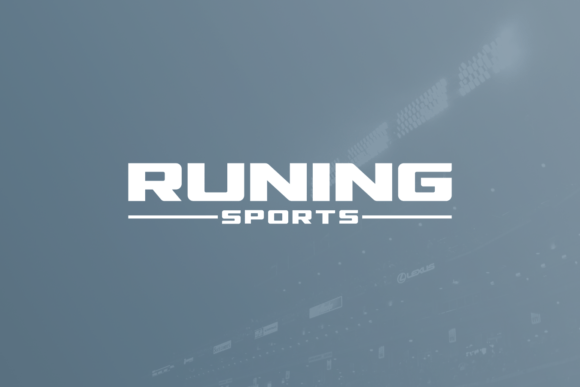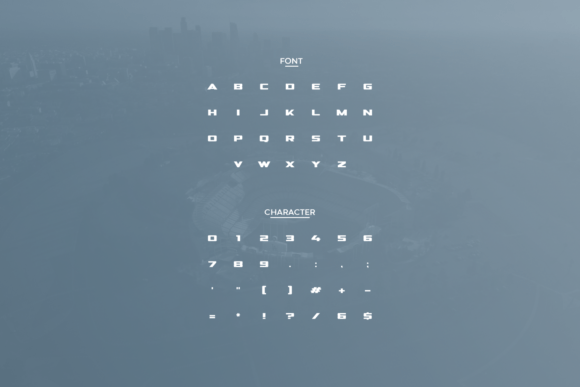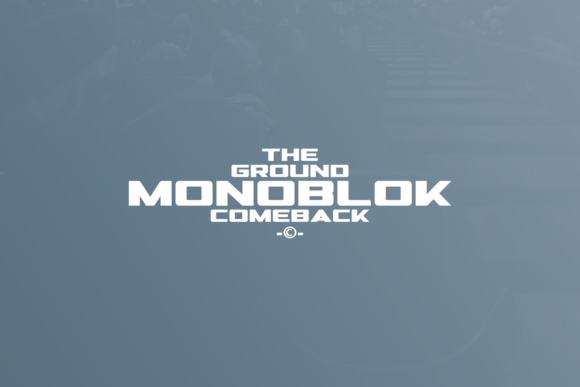
Introduction to Kunings Font
You know that moment when you’re working on a creative project and the right font can make all the difference? For designers, the hunt for the perfect typography is an ongoing quest. As you search through font libraries, you stumble upon a hidden gem – the Kunings Font. This stylish and modern sans-serif font is an incredible asset to any design library, with the potential to elevate any creation.
What sets the Kunings Font apart is its high-quality design, making it a valuable resource for designers. Whether you’re working on a design project or creating digital art, this font is sure to impress. With its clean lines and versatile style, it’s the perfect addition to any design toolbox. And the best part? The Kunings Font is available for free download, giving designers the freedom to explore its full potential.
From logos to brochures, the Kunings Font is a design resource that will help you take your creative projects to the next level. With a transparent background, it’s perfect for use on a variety of design elements, from social media graphics to website headers. Get ready to unlock the full potential of the Kunings Font and take your designs to new heights.
Key Features of Kunings Font
- High-quality design resource ideal for creative projects requiring unique typography.
- Transparent background allows for seamless integration into various design elements.
- Comes in a range of font sizes and resolutions, making it suitable for various design applications.
- Unique characteristics include its creative and modern aesthetic, perfect for artistic and innovative projects.
- Supports a wide range of languages, making it a versatile design resource for international projects.
Honest Review: Kunings Font
I recently had the chance to work with the Kunings Font for a creative project, and I was impressed by its potential as a design resource. This free download offers a lot of flexibility, especially when it comes to pairing it with a transparent background. The clean and modern design makes it a great choice for various high-quality projects.
- ✨ Works well with transparent backgrounds, adding an extra layer of design freedom
However, there are a few limitations to keep in mind. The font’s availability in a limited number of weights and styles might be a drawback for some designers. Additionally, the font’s usage might be restricted in certain commercial contexts.
- ⚠️ Limited number of weights and styles available
Overall, I was pleased with the Kunings Font’s performance in my project. While it has its limitations, it’s a great choice for designers looking for a high-quality, free design resource.
The Kunings Font is a high-quality design resource ideal for creative projects. It offers a unique and modern aesthetic that can elevate any design. This guide will walk you through how to use Kunings Font in popular design platforms.
Tips for getting the most out of Kunings Font include experimenting with different font sizes and styles, using it in combination with other fonts, and taking advantage of its transparent background feature.
Common use cases for Kunings Font include creating social media graphics, designing logos, and developing marketing materials. With its free download option, you can use Kunings Font in a variety of creative projects without breaking the bank.